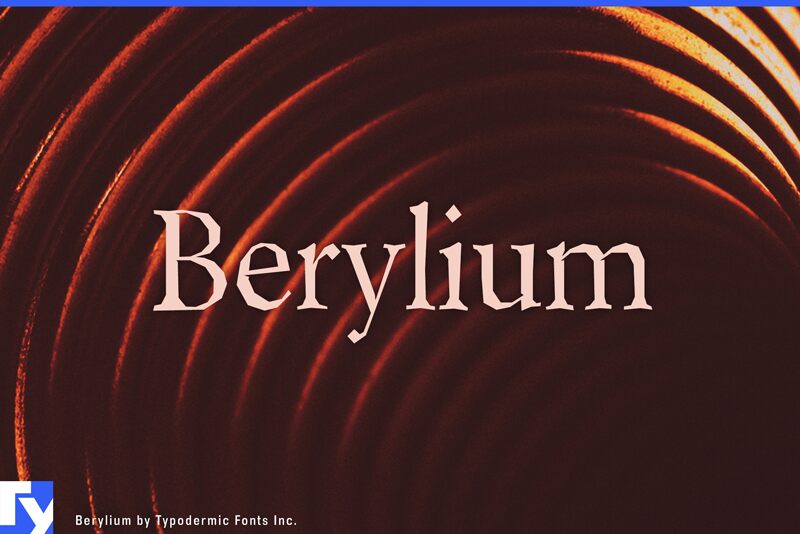
Berylium-Regular
Berylium, a captivating serif typeface crafted by Typodermic Fonts, exudes a distinct edgy charm. Its jagged contours, reminiscent of chopped paper or metal, lend an intriguing industrial aesthetic that commands attention. This versatile font radiates a sense of raw power and ruggedness, making it a compelling choice for projects seeking a bold, distinctive typographic presence.
Berylium's unique character shines through its four expressive styles - Regular, Italic, Bold, and Bold Italic - each offering versatile applications across a wide range of design disciplines. Whether in print, digital, or branding contexts, this font's striking visual impact can elevate the aesthetic appeal and memorability of any project, from editorial designs to packaging, signage, and beyond.